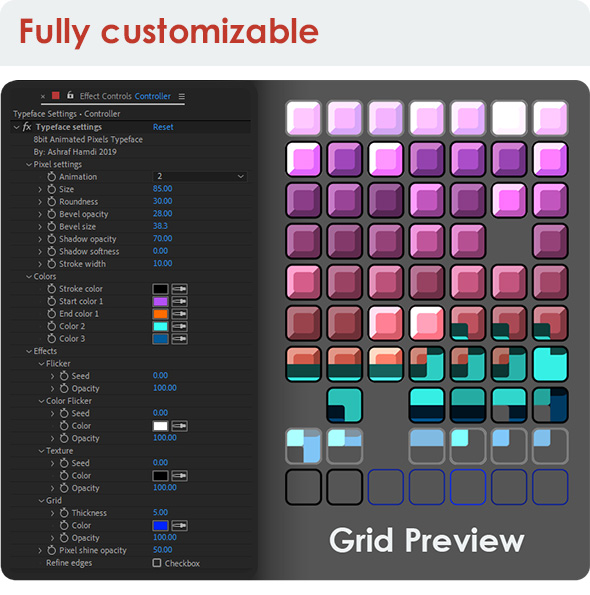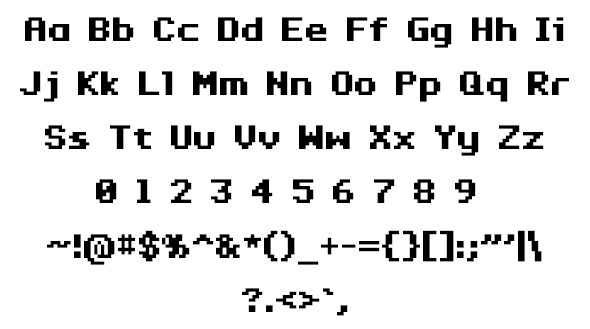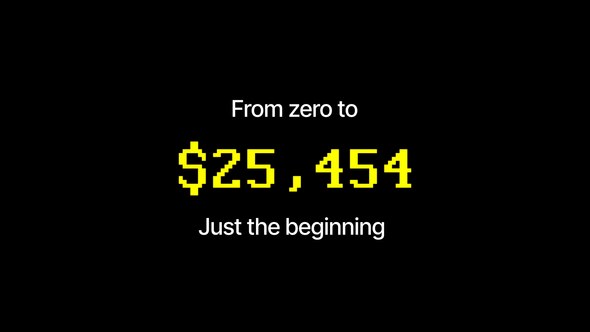
8bit - Animated Pixels Typeface
Fully customizable animated pixels Typeface with a free powerful easy to use script.
8bit is an animated Pixels Typeface based on After Effects shapes which makes it a very customizable typeface in many different ways to suit your needs, it comes with a powerful Typology UI script that allows you to create your animated words with just one click!
- Unlimited styles
- Full English alphabet lowercase and uppercase with numbers and symbols
- Resizable
- Very easy to use and customize
- Can be used with any other typeface!
- Allows for multiple typeface use
Typeface Preview